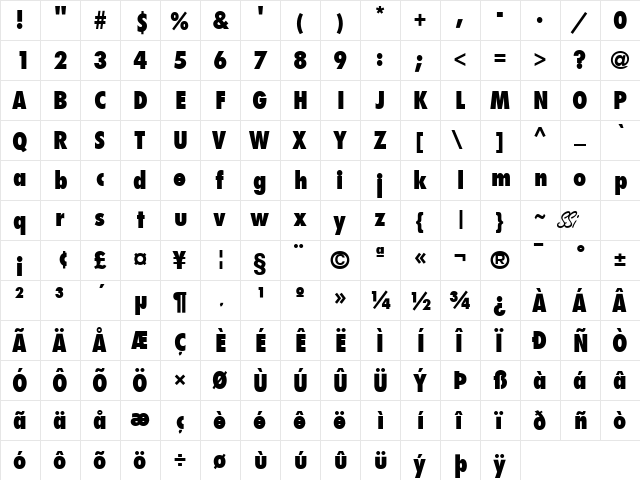
Kudos Black Condensed SSi Extra Bold Condensed Font Preview
Design Context for Kudos Black Condensed SSi Typeface
Kudos Black Condensed SSi offers clean, dependable letterforms without strong stylistic allegiance, making it a practical choice for designers who need flexibility. Its bold stroke weight gives it real presence on the page. The condensed width makes it efficient for tight spaces without sacrificing legibility.
Pro Tip: Use Kudos Black Condensed SSi in both headline and body roles to test its range before committing to a single application.